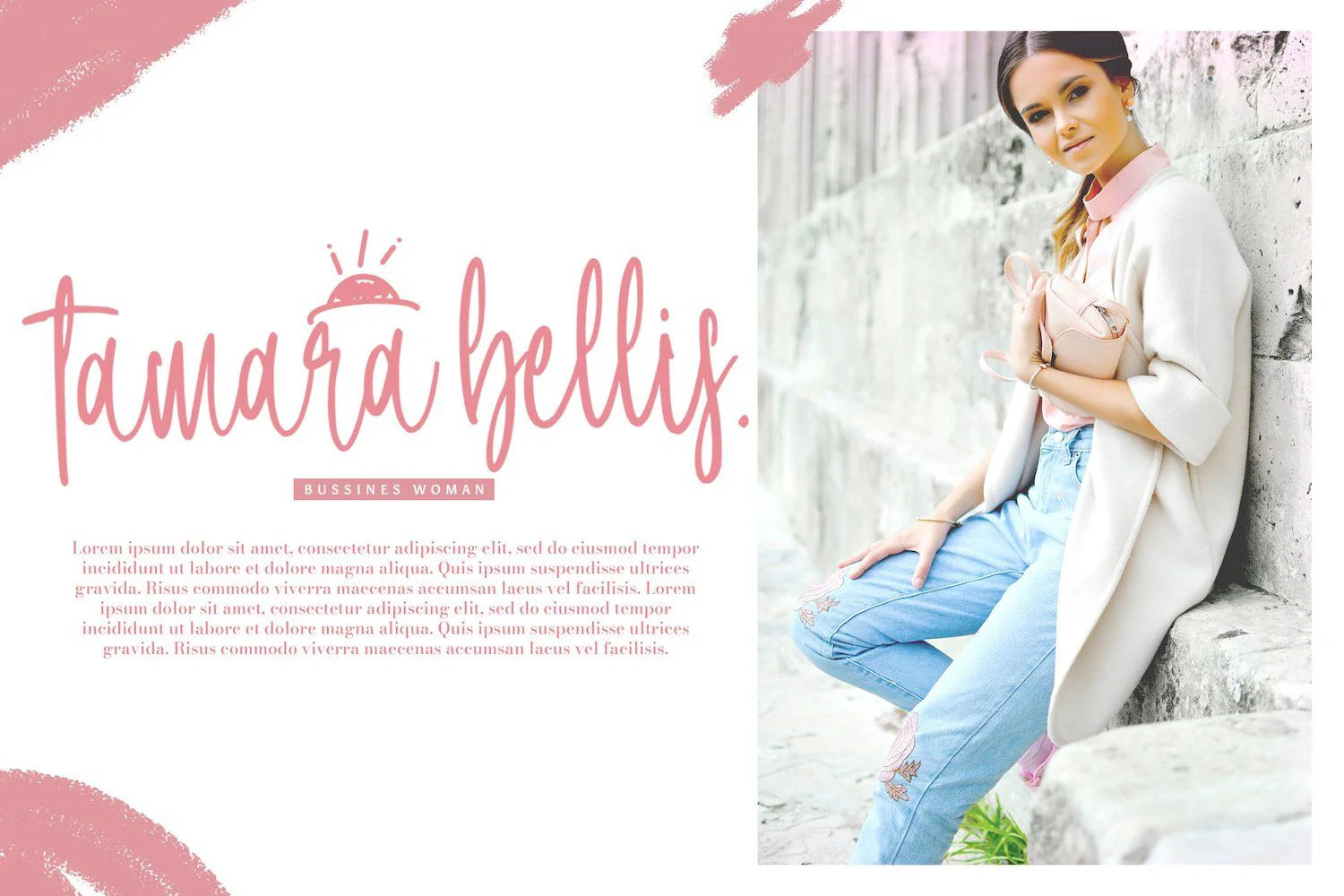
Introducing Lintang Kangen - Handwritten Font
Lintang Kangen is a delicate, elegant and flowing handwritten font. It has beautiful and well balanced characters and as a result, it matches a wide pool of designs. Add it to your most creative ideas and notice how it makes them come alive!
Introducing Lintang Kangen - Handwritten Font
Lintang Kangen is a delicate, elegant and flowing handwritten font. It has beautiful and well balanced characters and as a result, it matches a wide pool of designs. Add it to your most creative ideas and notice how it makes them come alive!